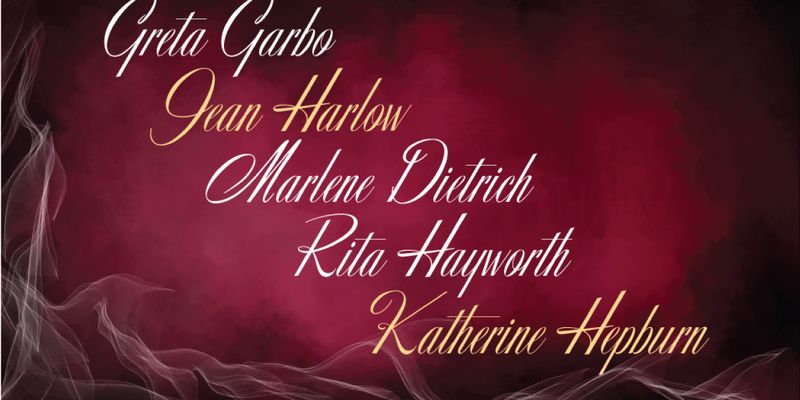
Savoir Faire is an original Jukebox typeface inspired by a hand-lettered 1950s ad. This elegant and classy script face is perfect for a variety of uses with its sophisticated flair. It has a definite Old Hollywood feel to it with out being overtly dated.